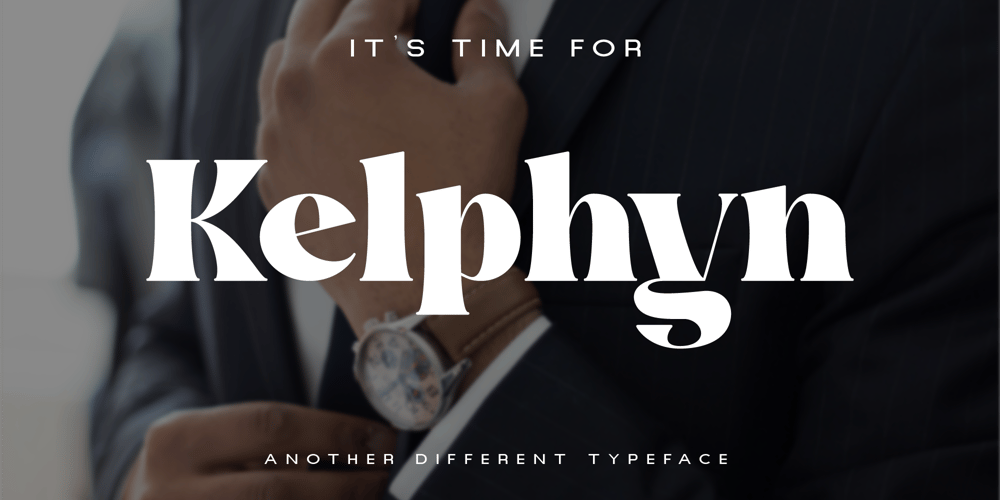
Kelphyn
Kelphyn font
Kelphyn Font Family was designed by Irfan Hidayat and published by Creative17studio. Kelphyn contains 2 styles and family package options. Hello, now I tell you.its time for “Kelphyn”.Yes you heard right. Kelphyn is a serif font family that allows you to try out new, innovative designs that suit your taste. Created to support all forms of design, art and ideas. especially for modern magazine designs, website layouts and supporting branding layouts.Grab it fast hereFree updates